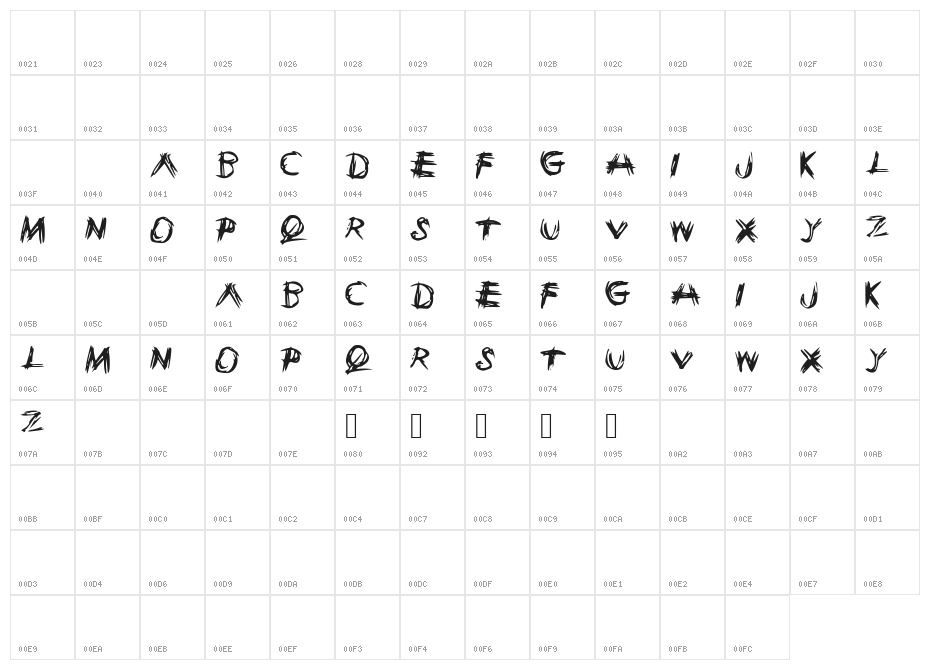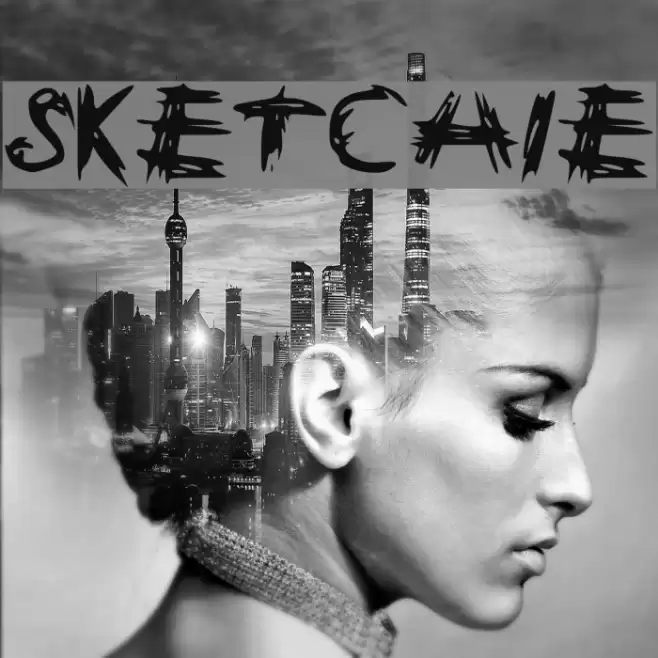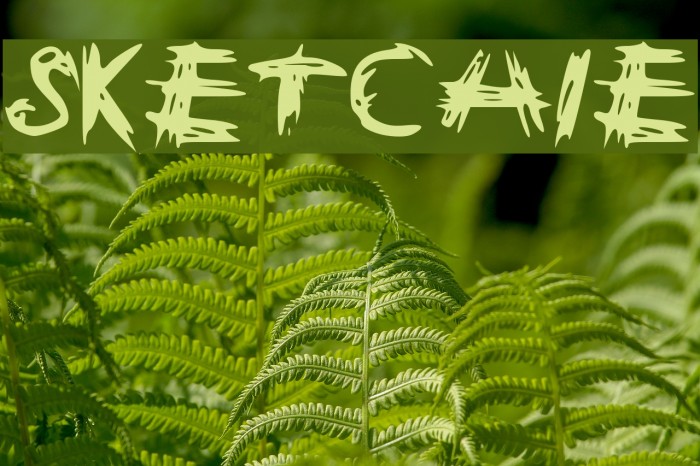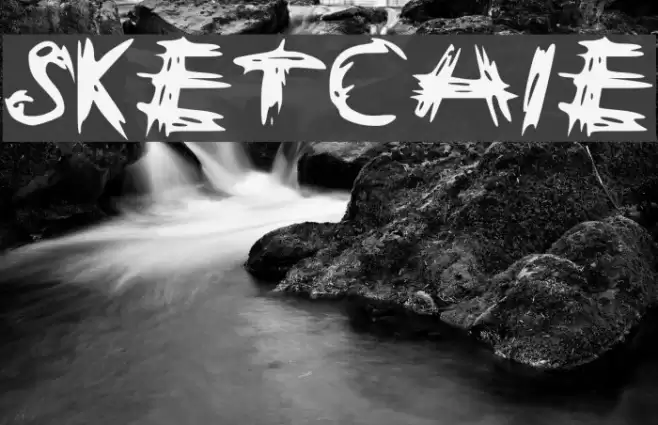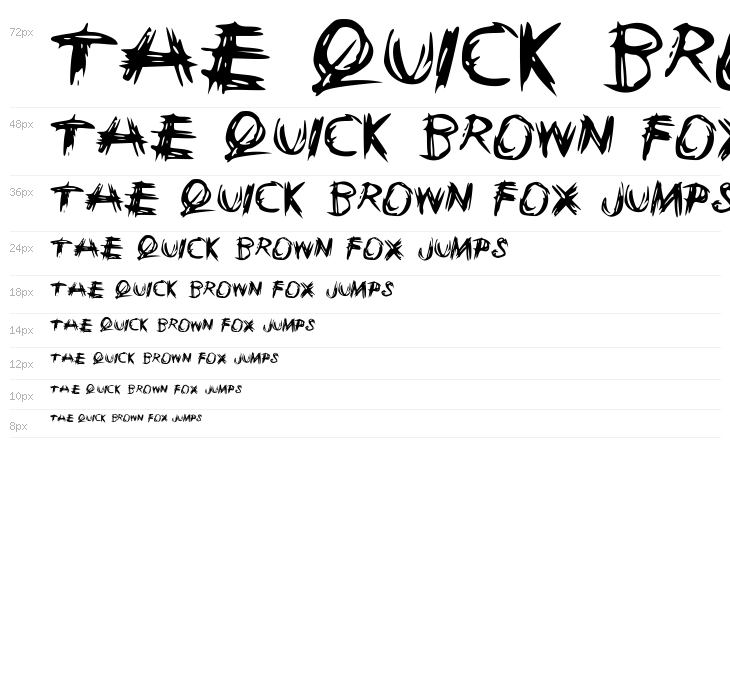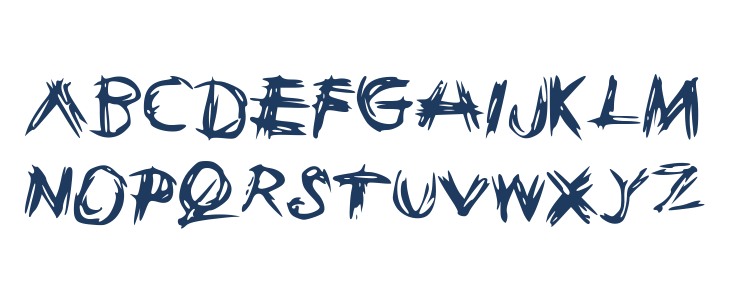
sketchie Font
sketchie Description
This font features a dynamic and edgy design, characterized by sharp, jagged edges and a sketch-like appearance. The letters are bold and expressive, giving off a sense of movement and energy. The strokes are irregular, with varying thickness that adds to the chaotic yet artistic feel. This font is highly decorative, making it stand out with its unique, hand-drawn style. It is perfect for projects that require a bold statement or an artistic touch, such as posters, album covers, or creative branding.
| Proposed Projects | Ideal for posters, album covers, creative branding, and any project needing an artistic, bold statement. |